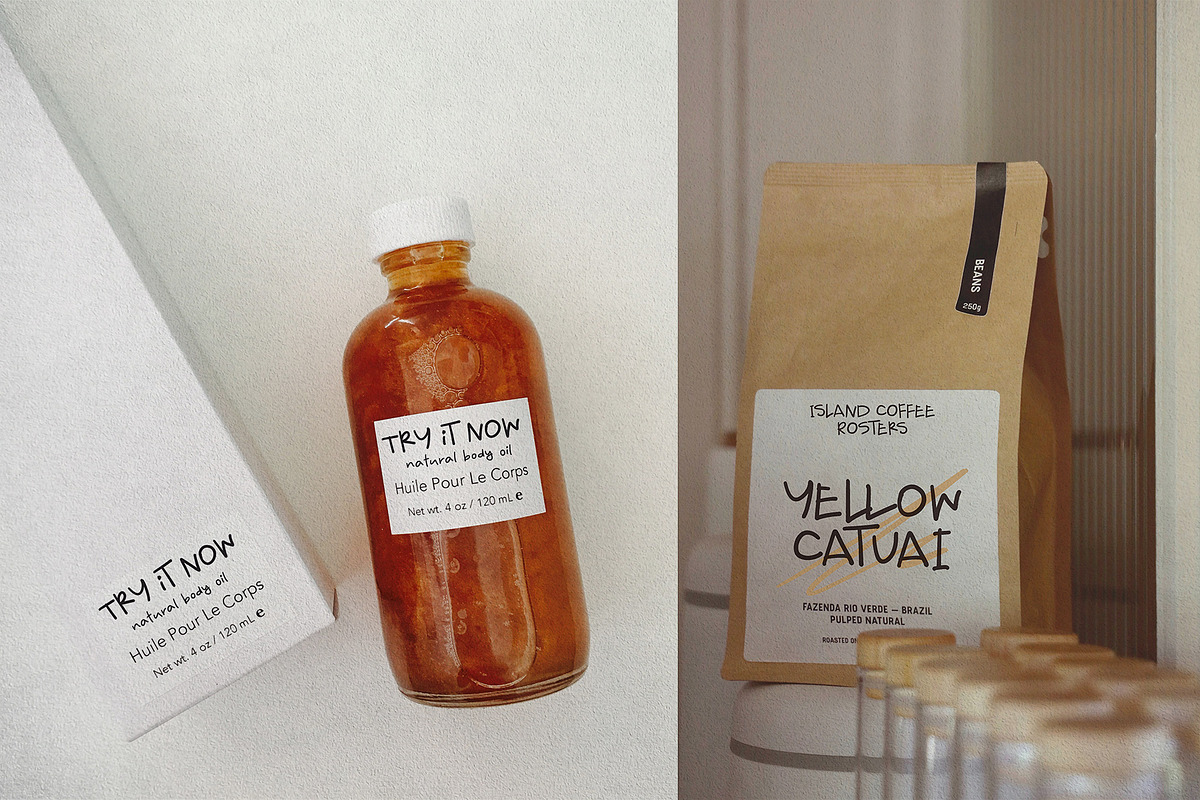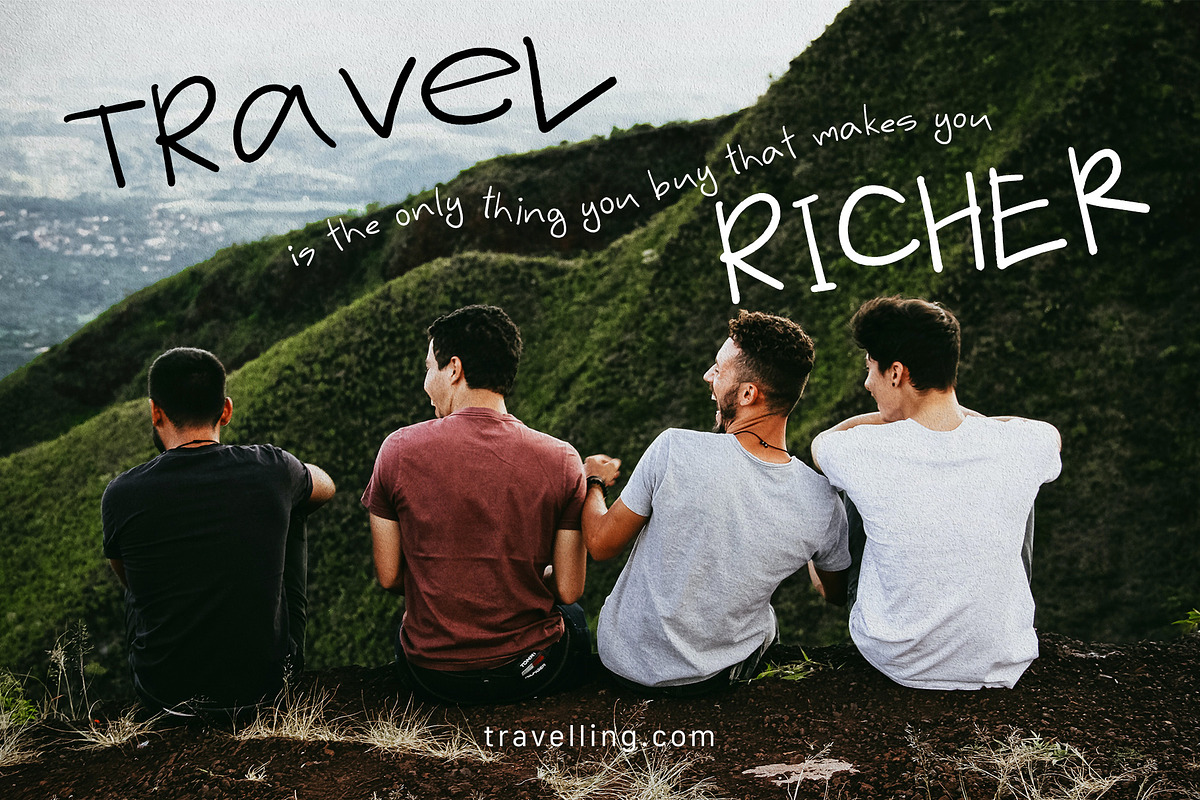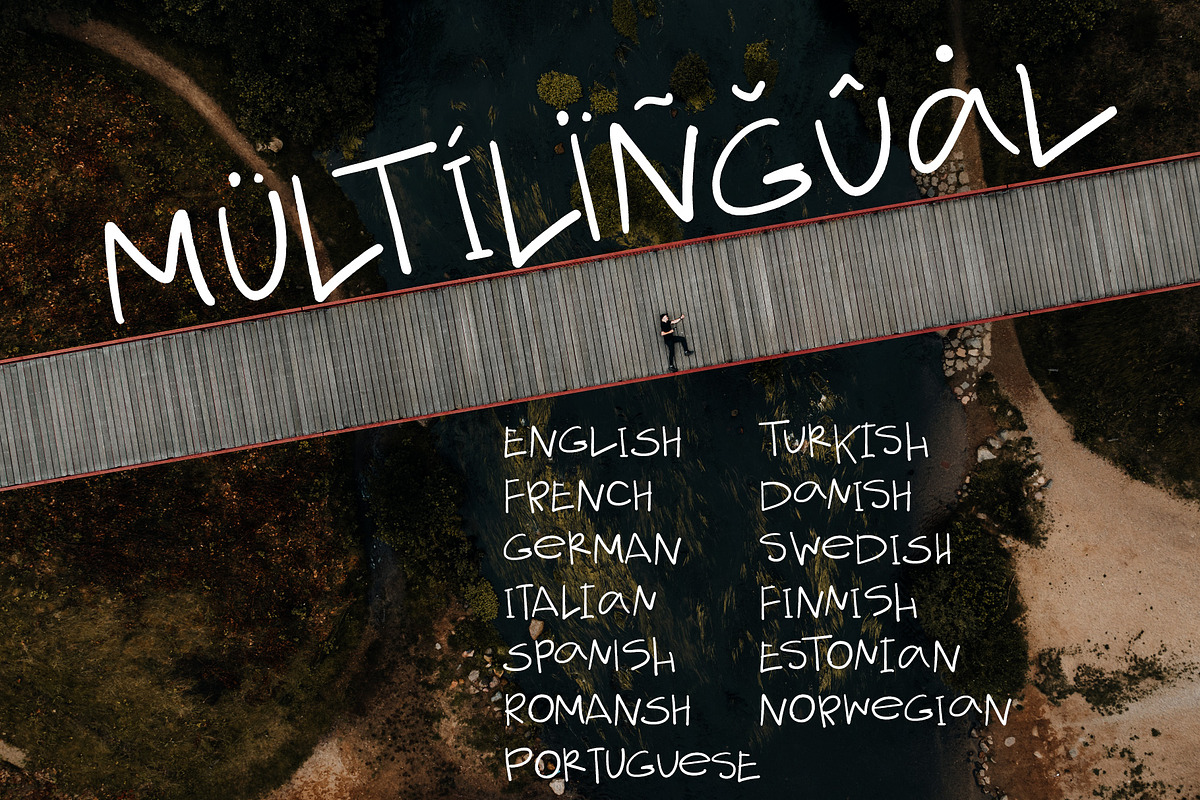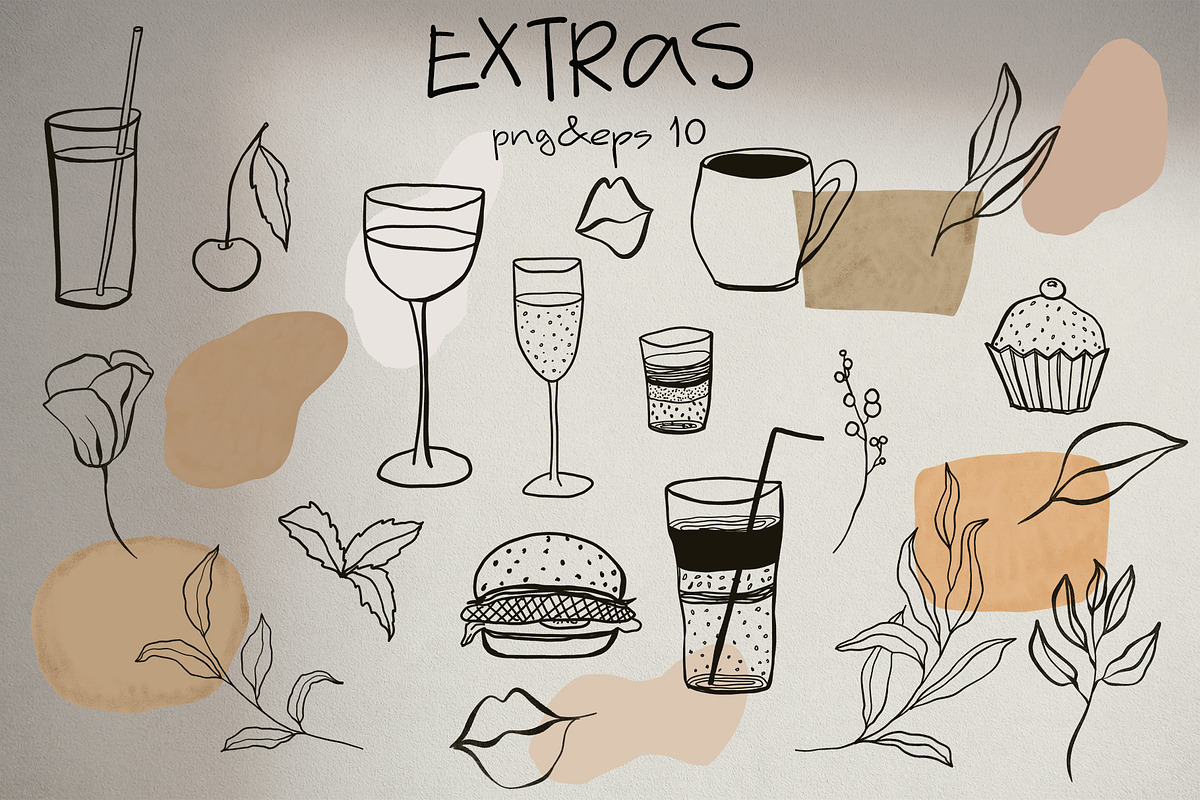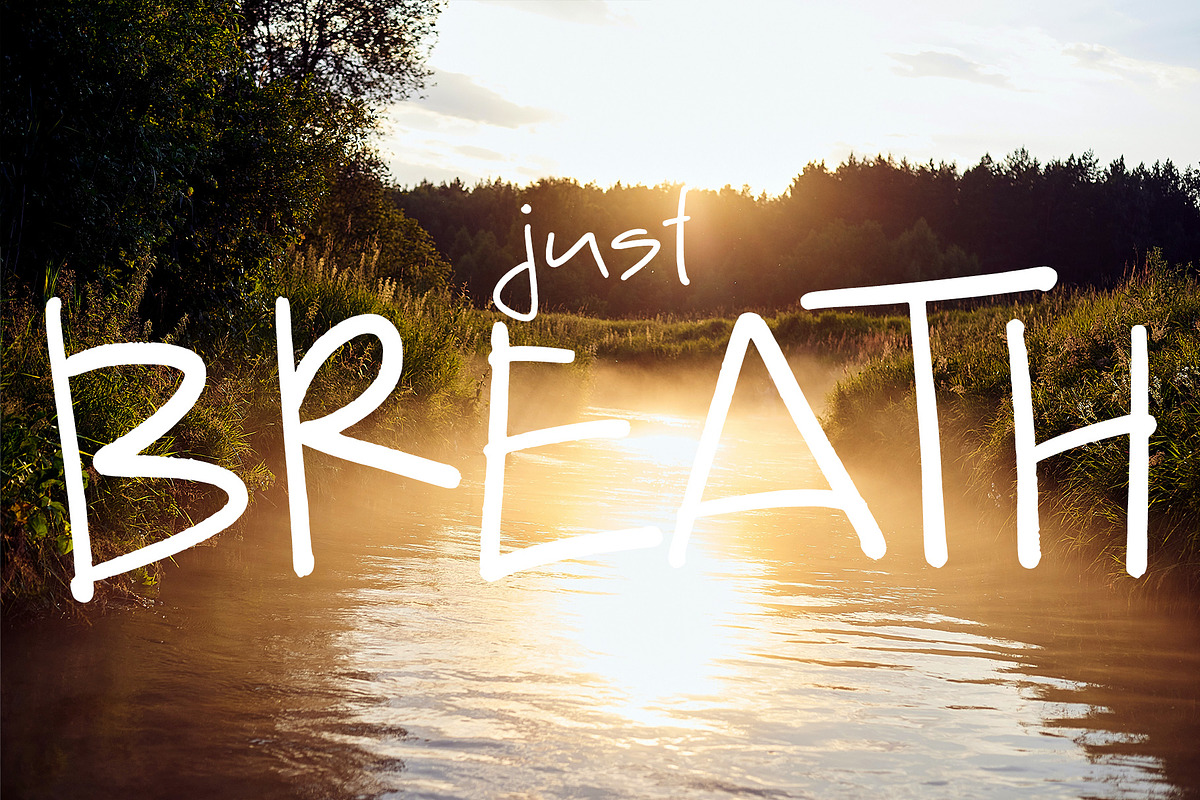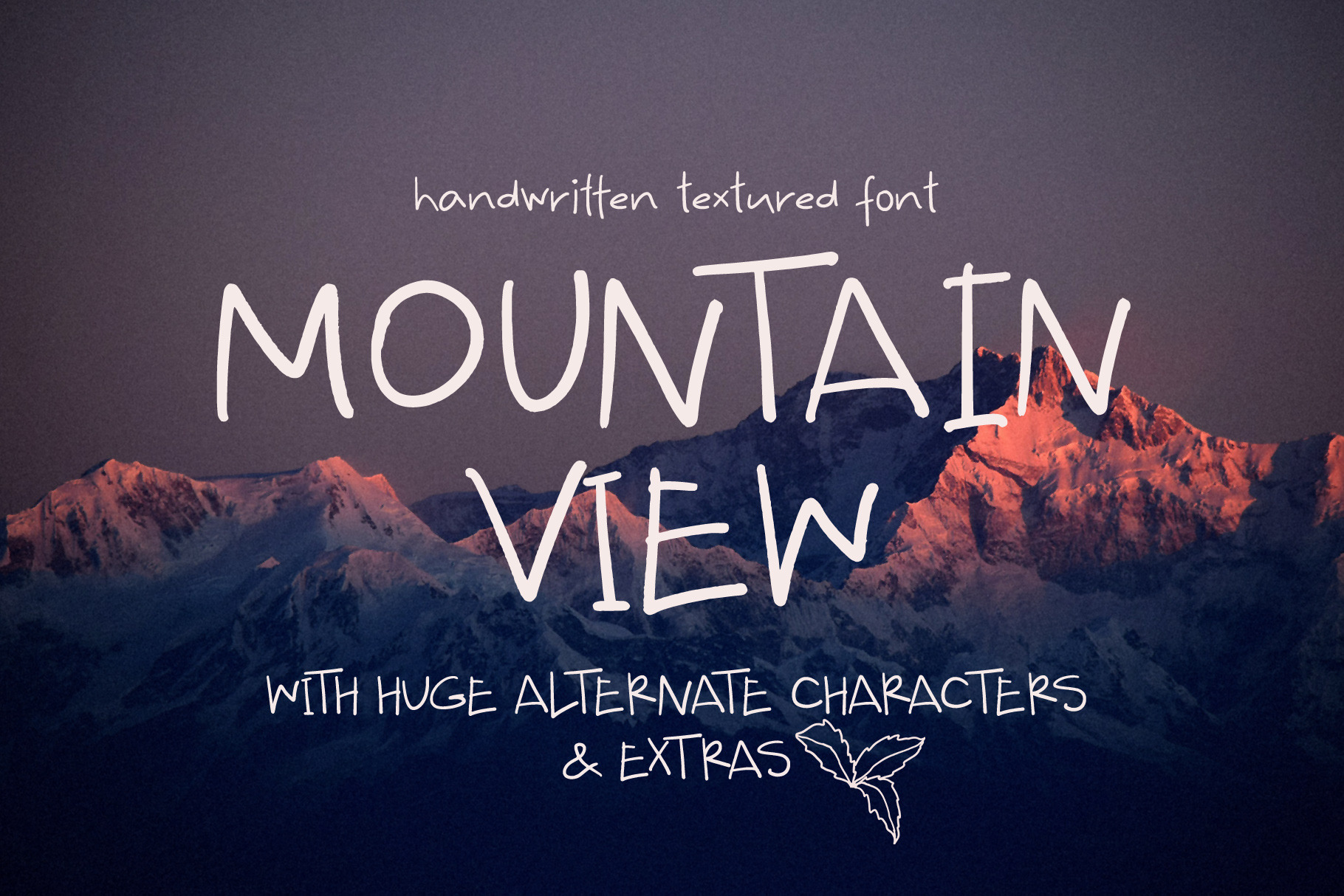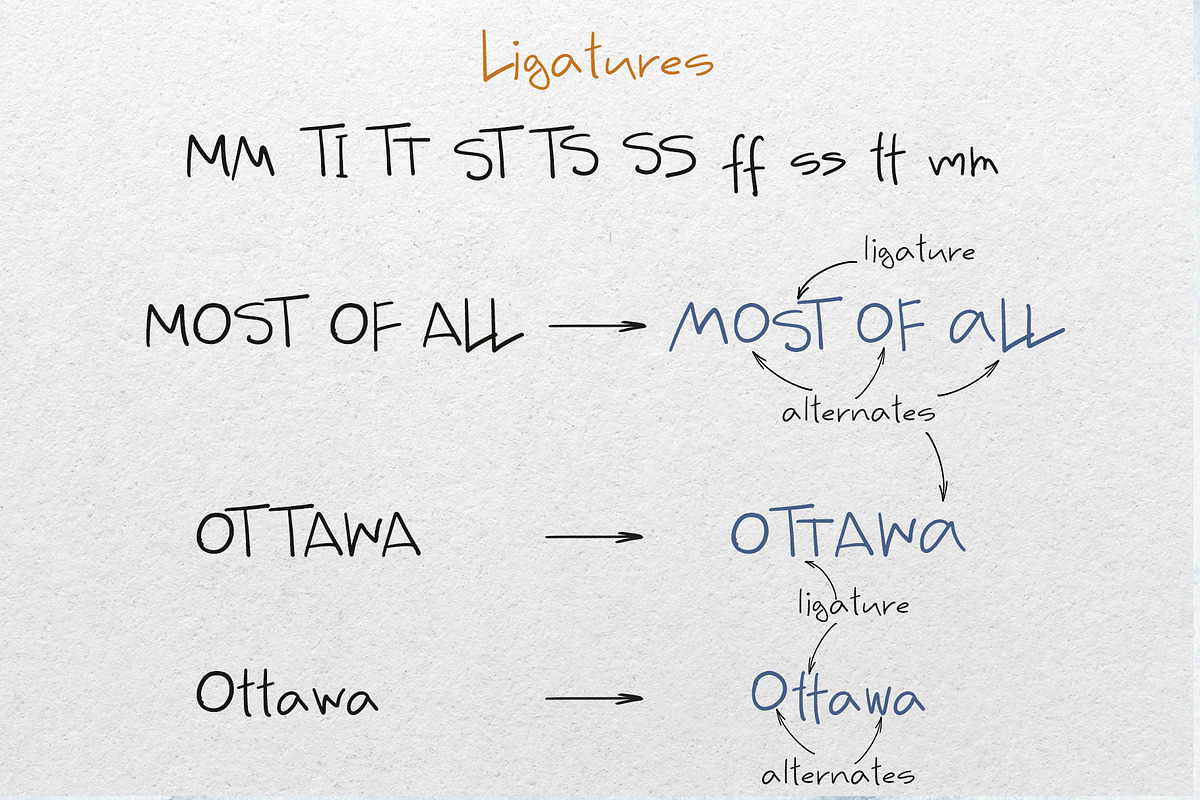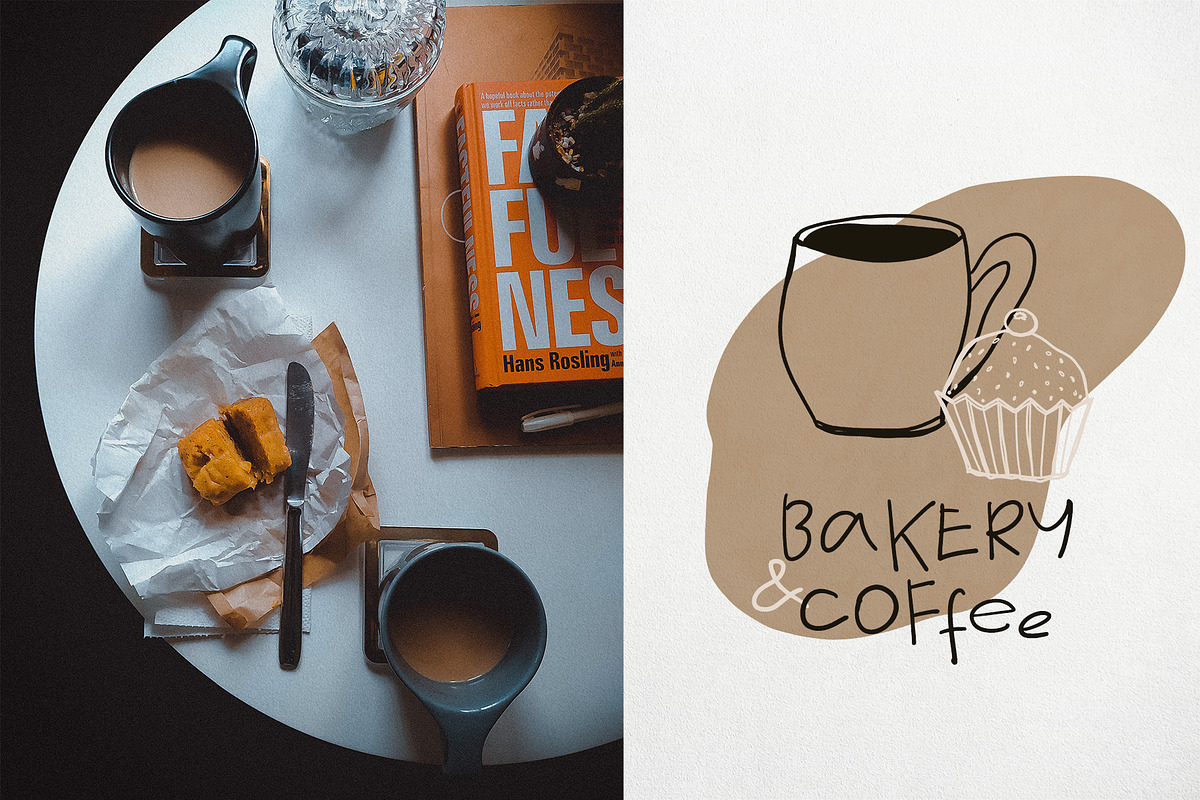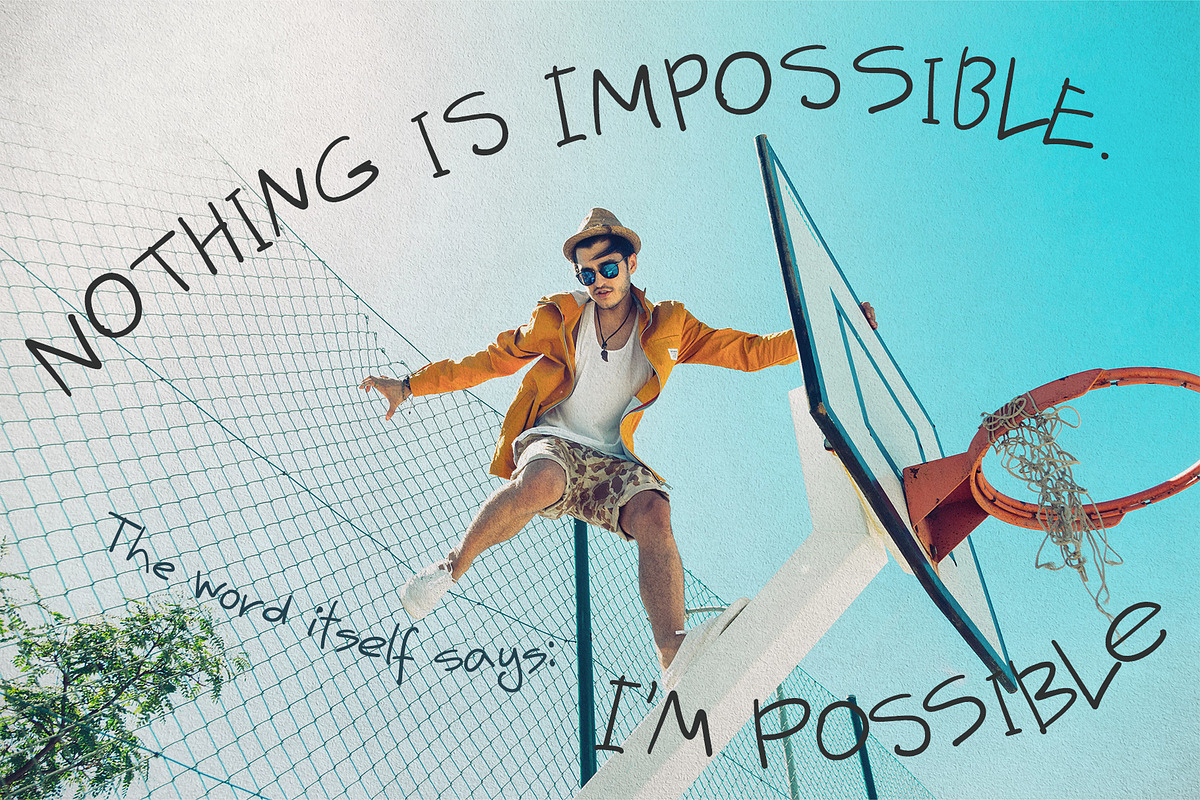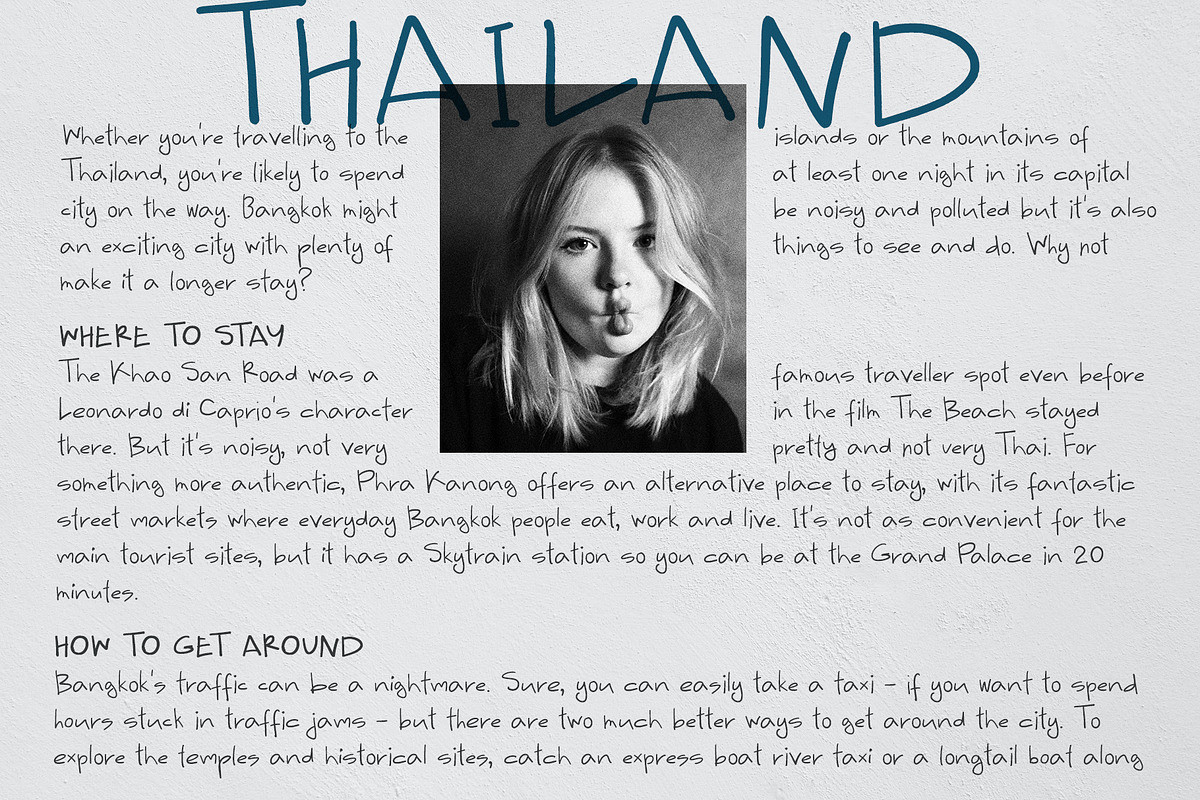
Mountain View handwritten font fun
Mountain View is a handwritten font made with a textured marker brush. The letters of the font jump a little, sometimes crawling under each other. The font is decorative, it includes stylistic alternatives for uppercase and lowercase letters, ligatures, illustrations of food and flowers. The font is suitable for decoration on various things, includes logo design, packaging.
Mountain View has extensive language support, it includes English, French, German, Italian, Spanish, Portuguese, Danish, Norwegian, Swedish, Finnish, Estonian, Romansh, Turkish. Need to know if your language is supported? Type any words in the text box below and see if all characters you need are there.